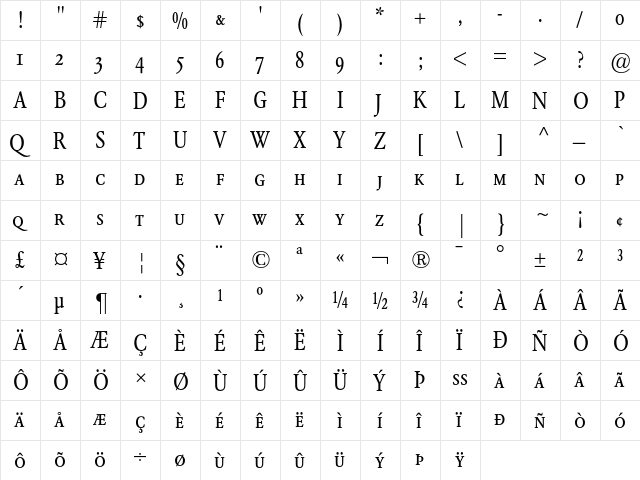
Garamond BE Condensed Small Caps & Oldstyle Figures
Garamond BE carries the refined structure of traditional serif typography, with bracketed terminals and considered proportions that communicate credibility and craft. Its narrow stance lets it pack a punch even in space-constrained designs.